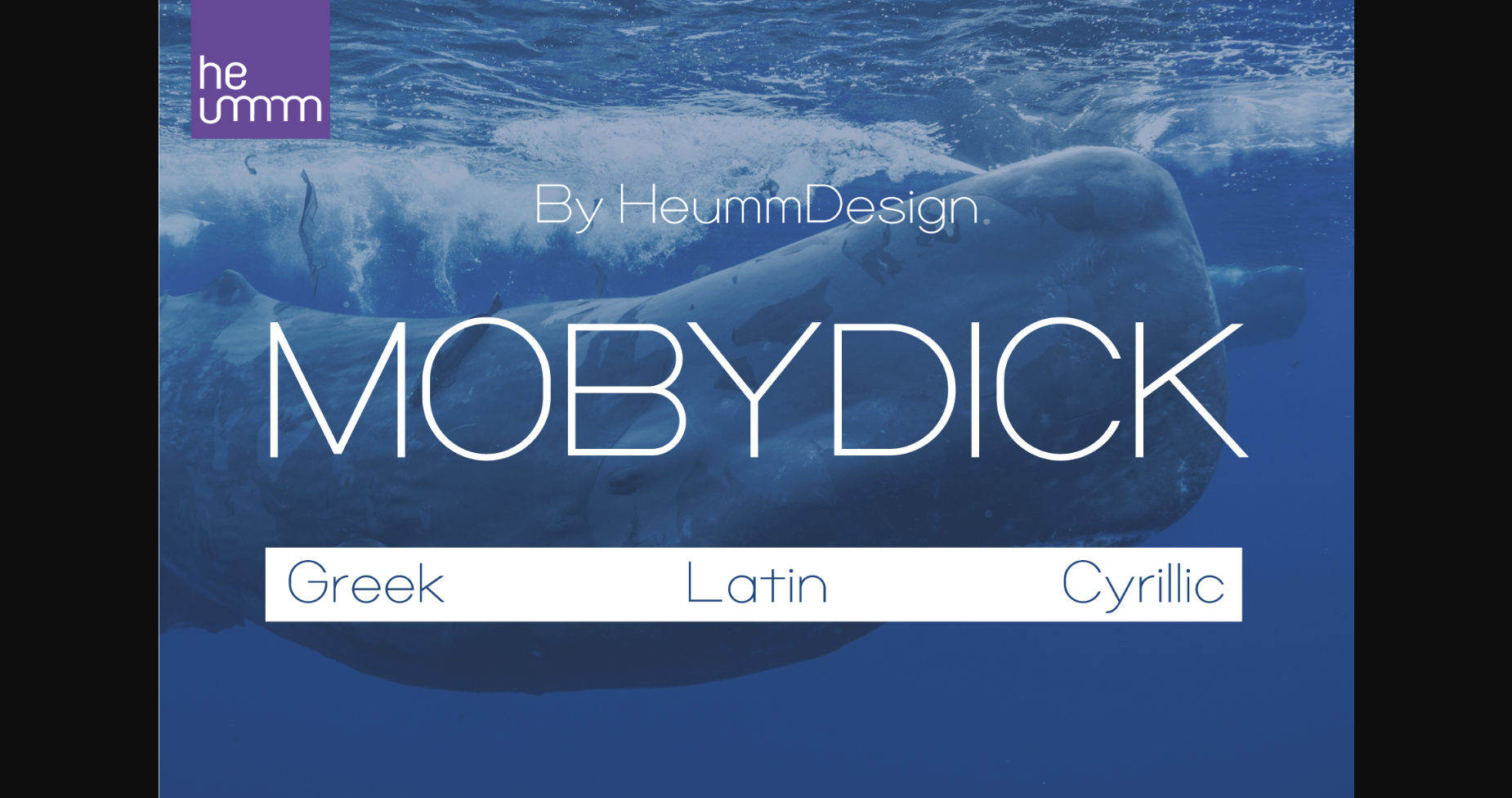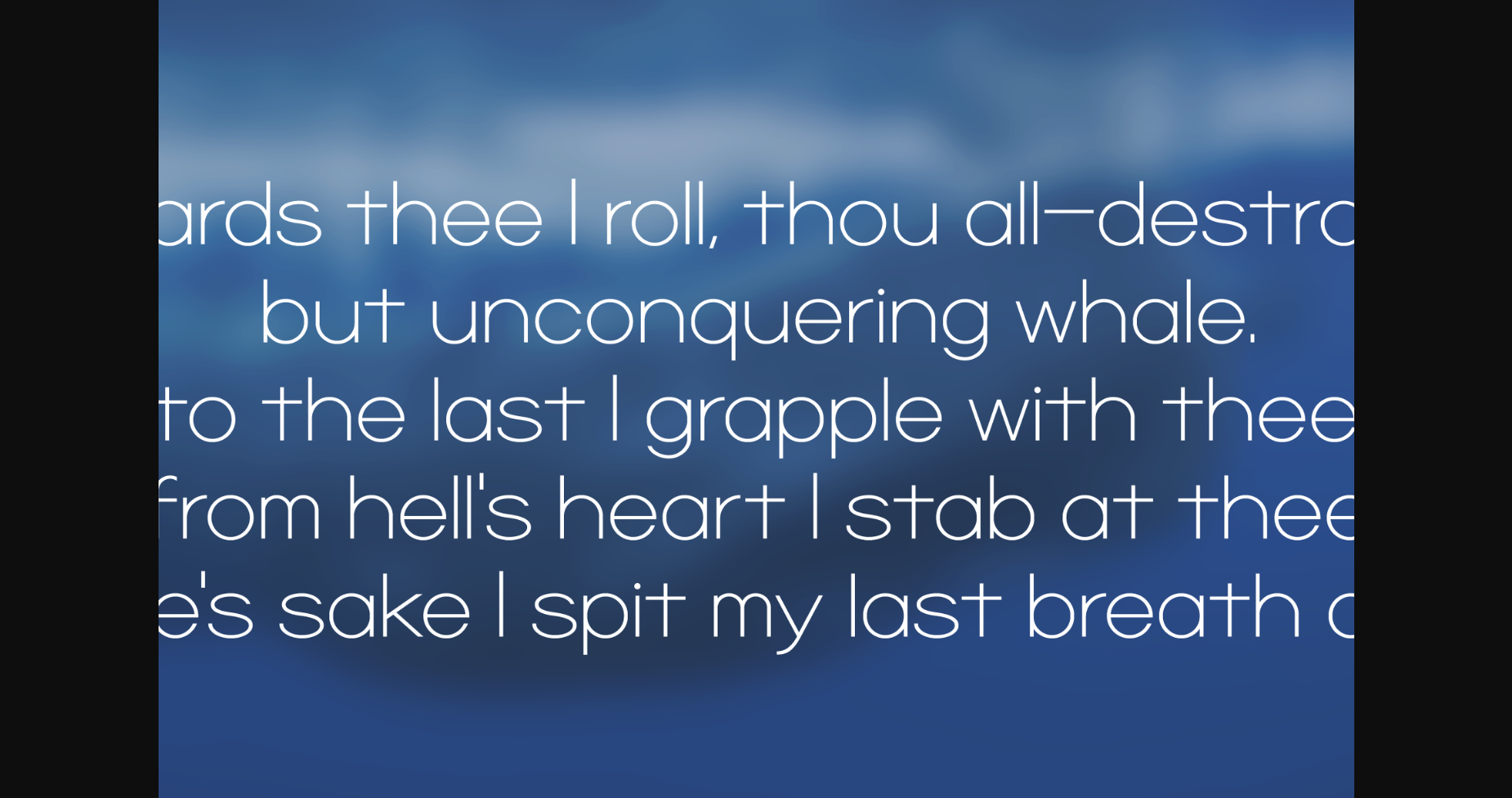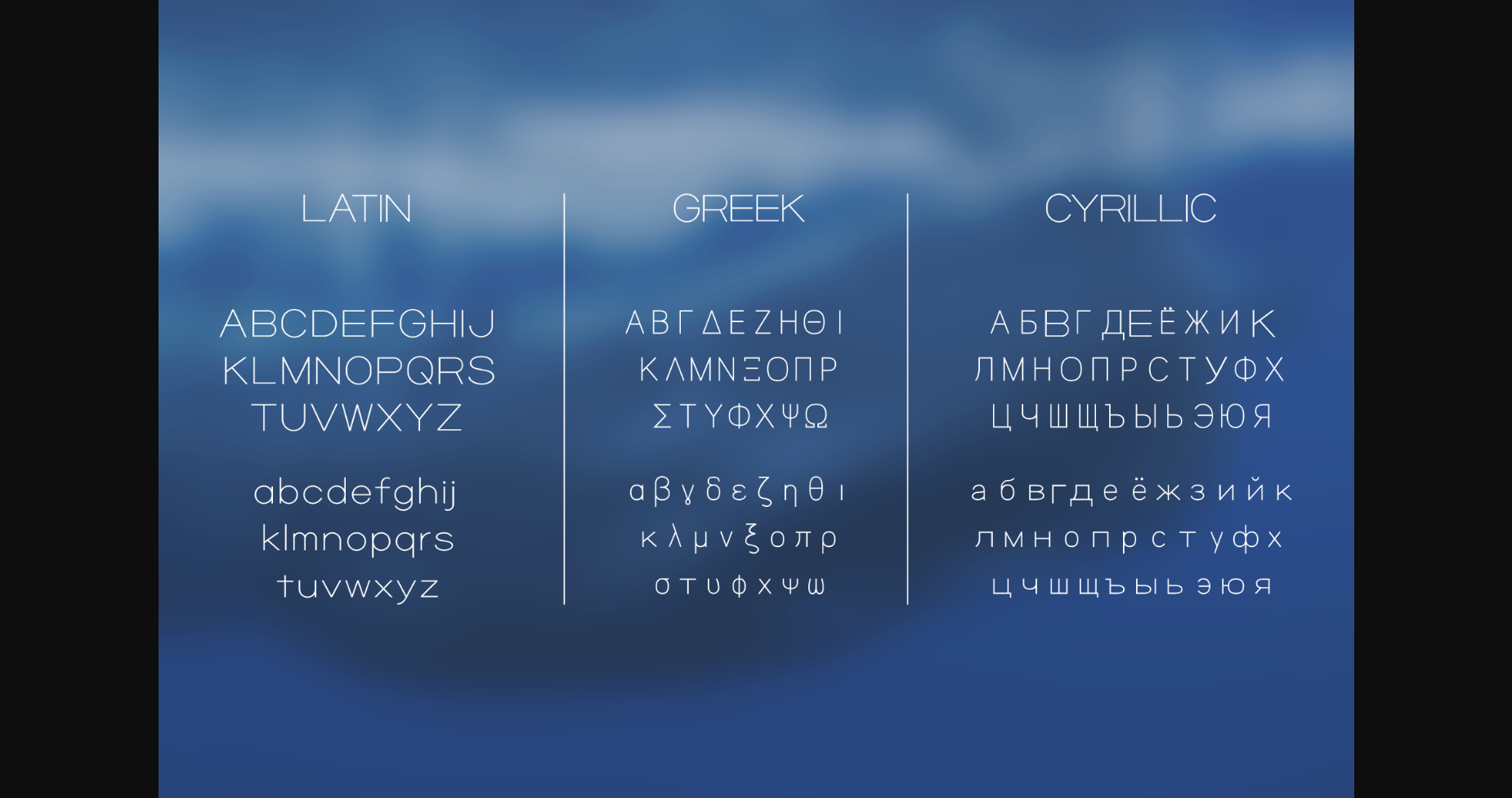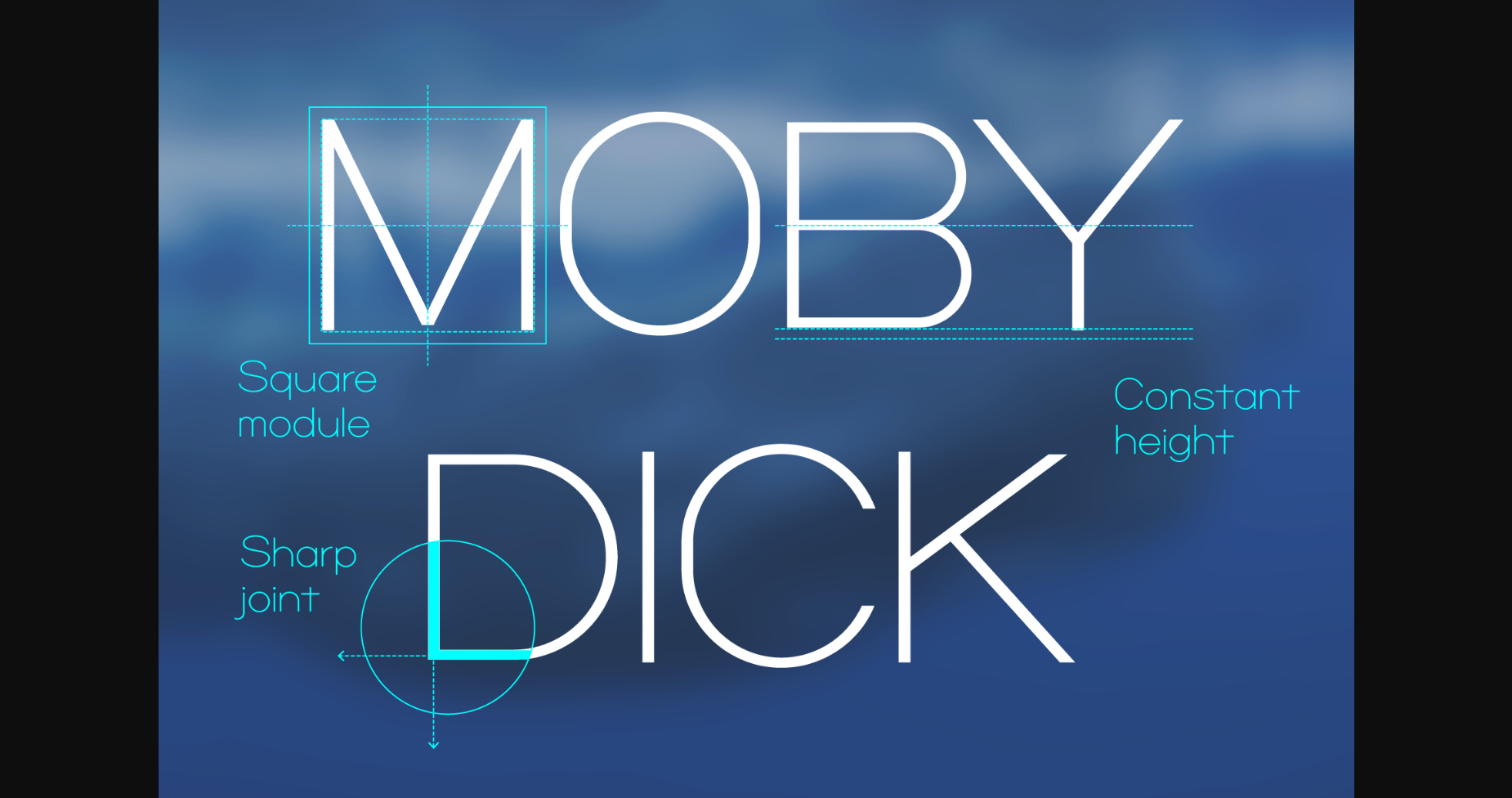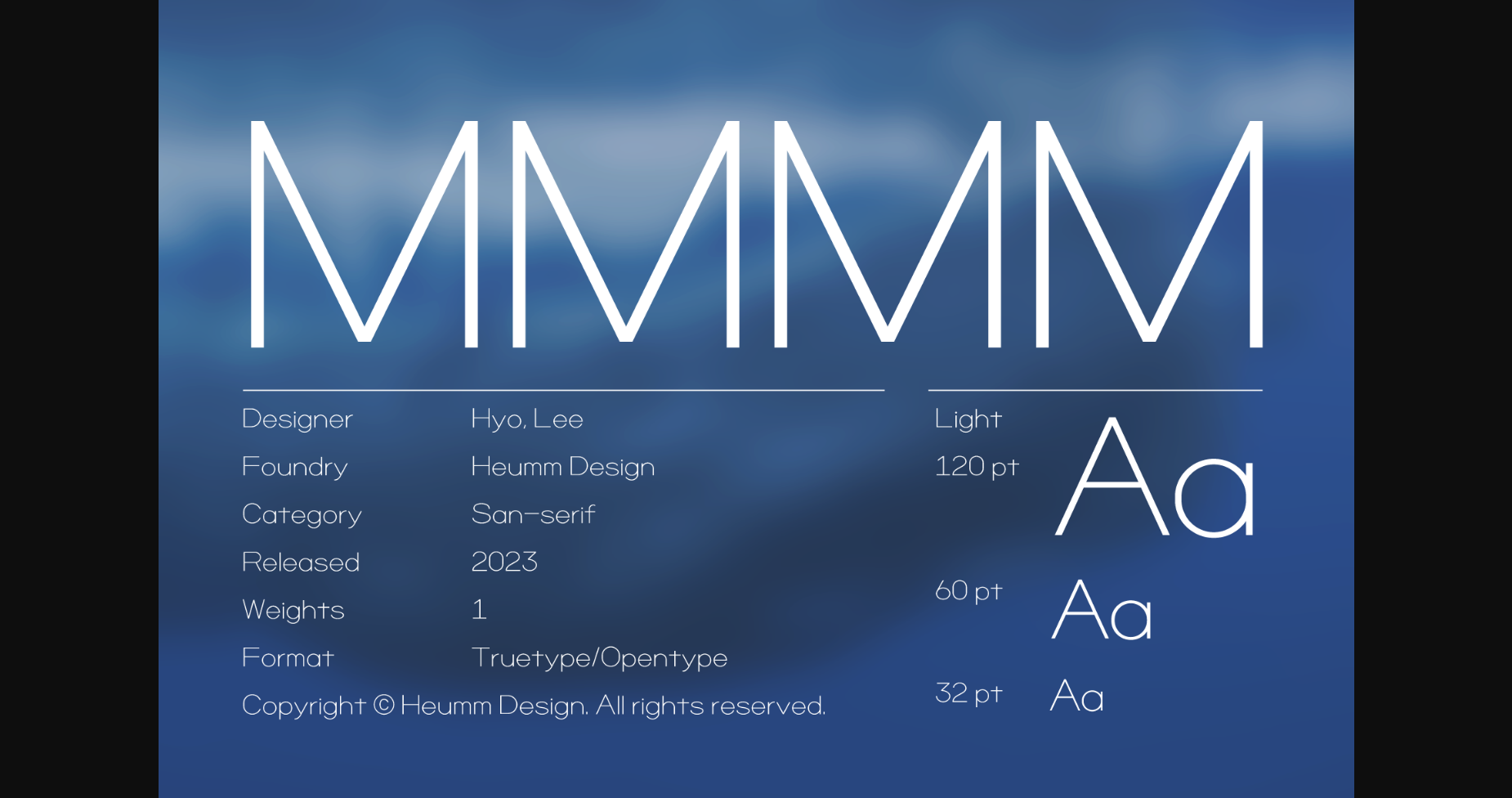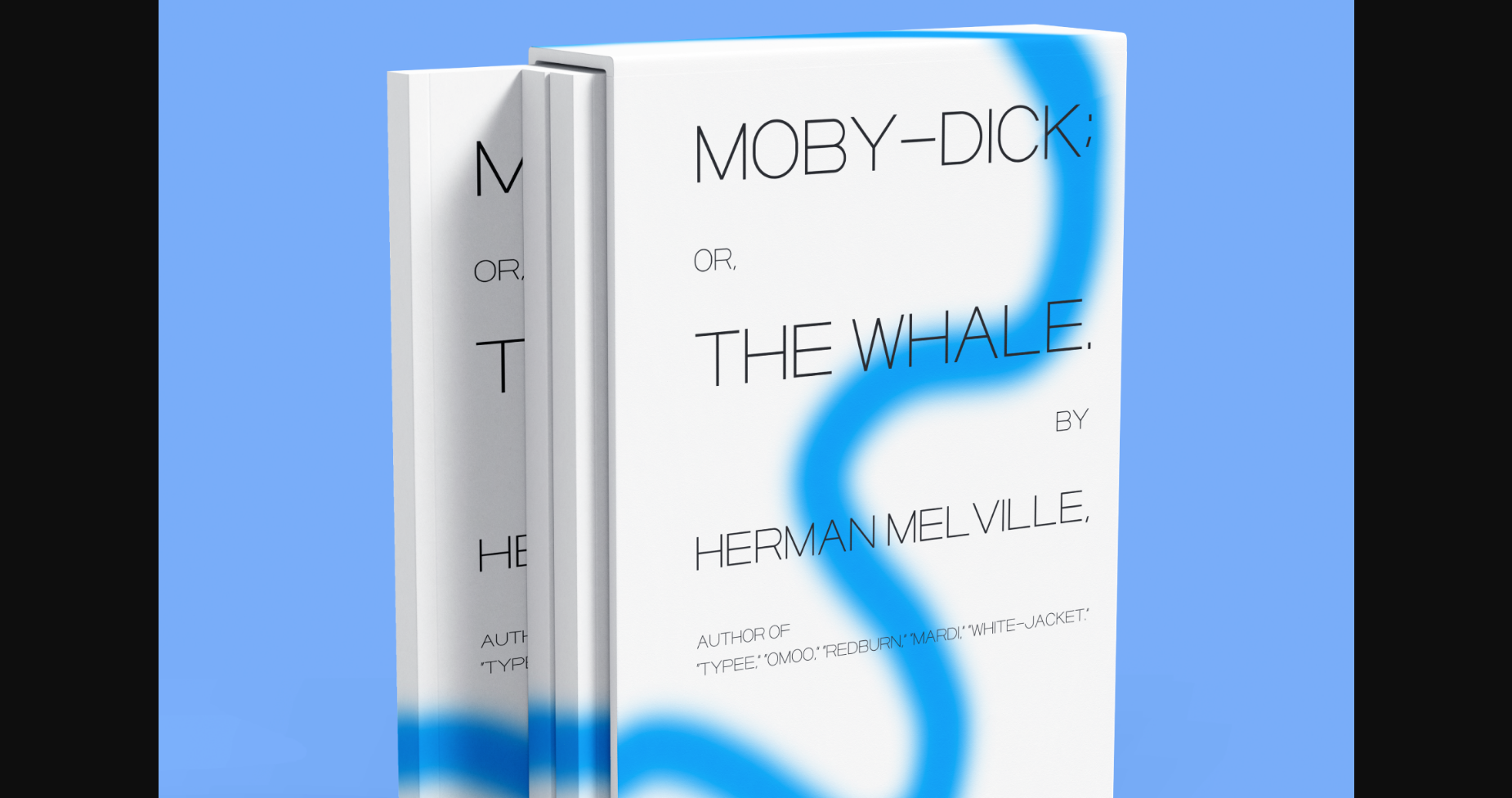
Mobydick Font
About Mobydick Font
Mobydick is a beautiful sans serif font perfect for any design you wish to create! Add it now to your favorite creative projects, and watch how it makes them outstanding!